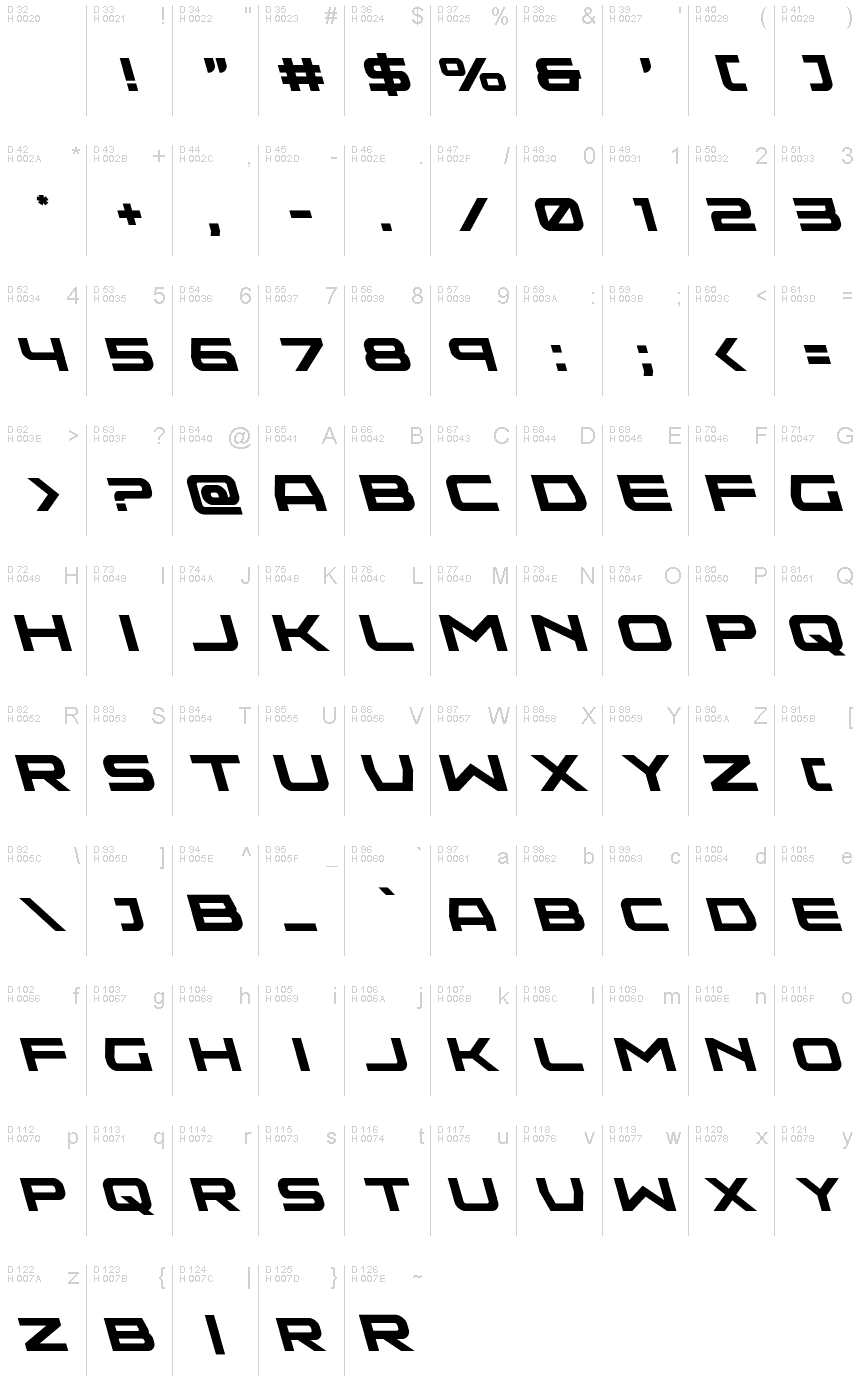
Neutron Dance Leftalic
Neutron Dance Leftalic, designed by Daniel Zadorozny, is a striking display font that exudes a futuristic vibe. With its semi-bold weight and extra-expanded width, this font is perfect for creating attention-grabbing headlines, logos, and posters. Its sleek and innovative design makes it suitable for projects related to technology, gaming, sci-fi movies, or any modern brand seeking a bold visual identity. Neutron Dance Leftalic will add a touch of dynamism and sophistication to your designs while ensuring readability.